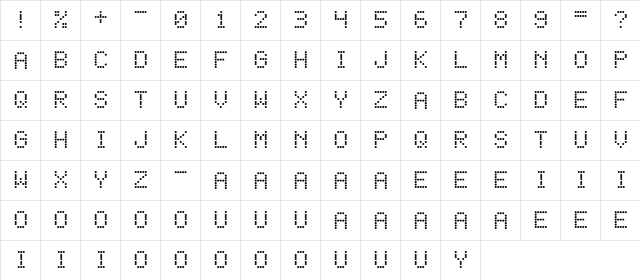
LED Dot-Matrix Regular
Design Context for LED Dot-Matrix Typeface
LED Dot-Matrix celebrates the constraints of early digital type, turning pixel geometry into a distinctive and immediately recognisable style.
A natural choice for retro game titles, chiptune music branding, 8-bit UI, and digital nostalgia projects.
Pro Tip: Pair LED Dot-Matrix with flat colour palettes and simple geometric UI elements to reinforce its digital aesthetic.